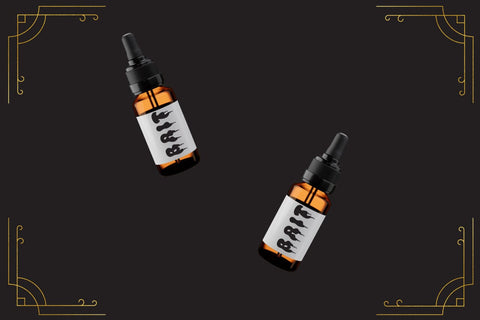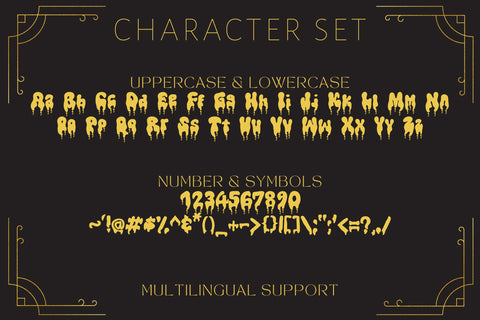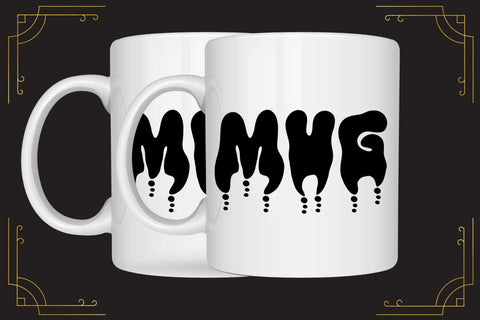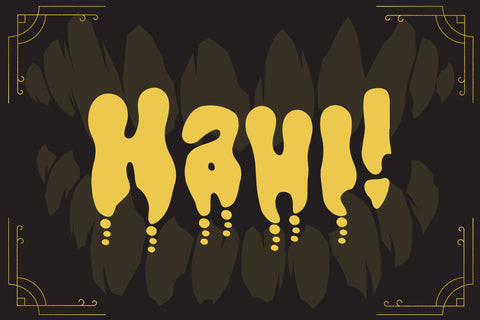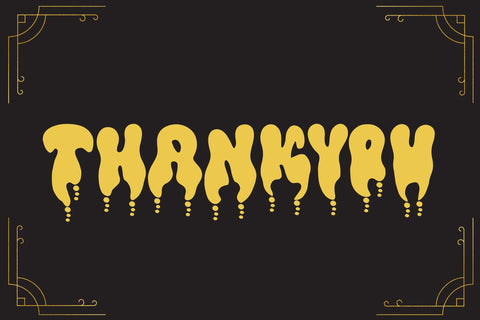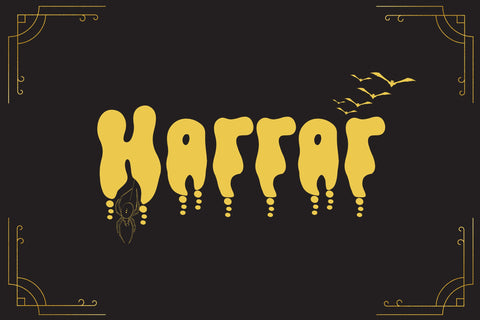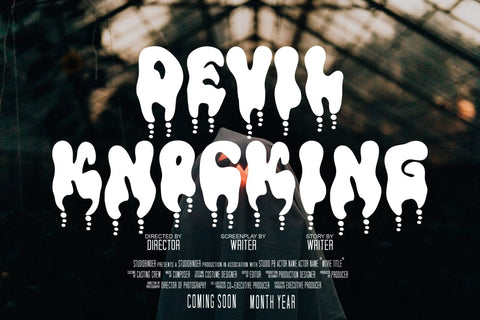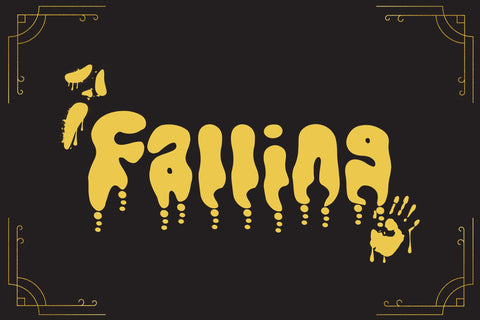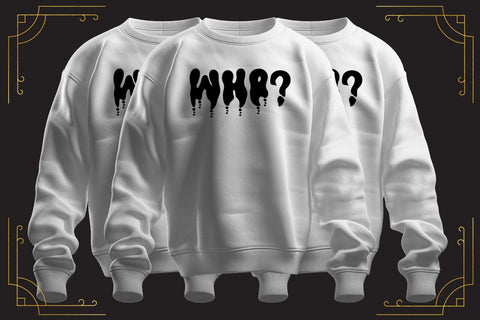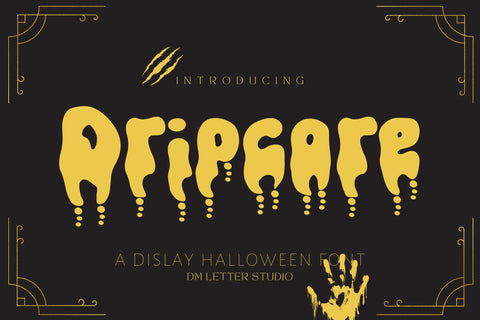
Dripcore Font
Meet Dripcore Font
Dripcore Font brings bold horror energy with clean readability. Strokes are thick and confident, while artful drips add tension without killing clarity. Because the shapes stay sturdy, your titles pop on shirts, posters, covers, and thumbnails. Use it for Halloween drops, haunted attractions, game graphics, metal gigs, and spooky party kits. Moreover, Dripcore loves outlines, glows, and gritty textures, so even quick mockups look finished.
Where Dripcore Font shines
Set short phrases like “Night Parade,” “Blood Moon,” or a team name with numbers. Then add soft shadows, inner lines, or sticker borders to push depth. Since spacing is tuned for headlines, layouts come together in minutes. As a result, you can launch complete bundles for events, socials, and print-on-demand with less tweaking. Plus, the letterforms remain clear on mobile, which helps listings stand out fast.
Design tips for horror display
Keep copy short and let Dripcore lead. Pair headlines with a clean geometric sans for captions. Meanwhile, try grain, halftone, and light grunge for texture. Because the shapes are sturdy, outer glows and rim lights boost contrast on dark fabric. However, avoid long sentences on tiny labels. Names, dates, and punchy words hit hardest.